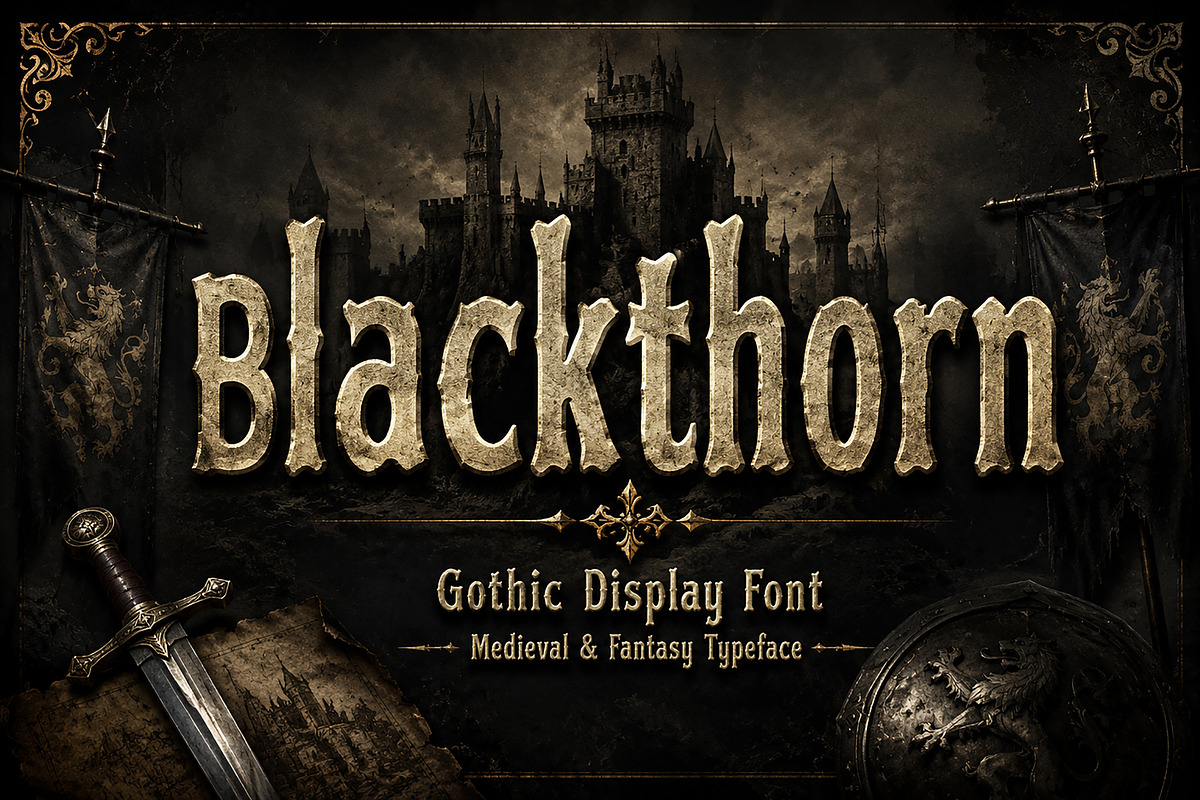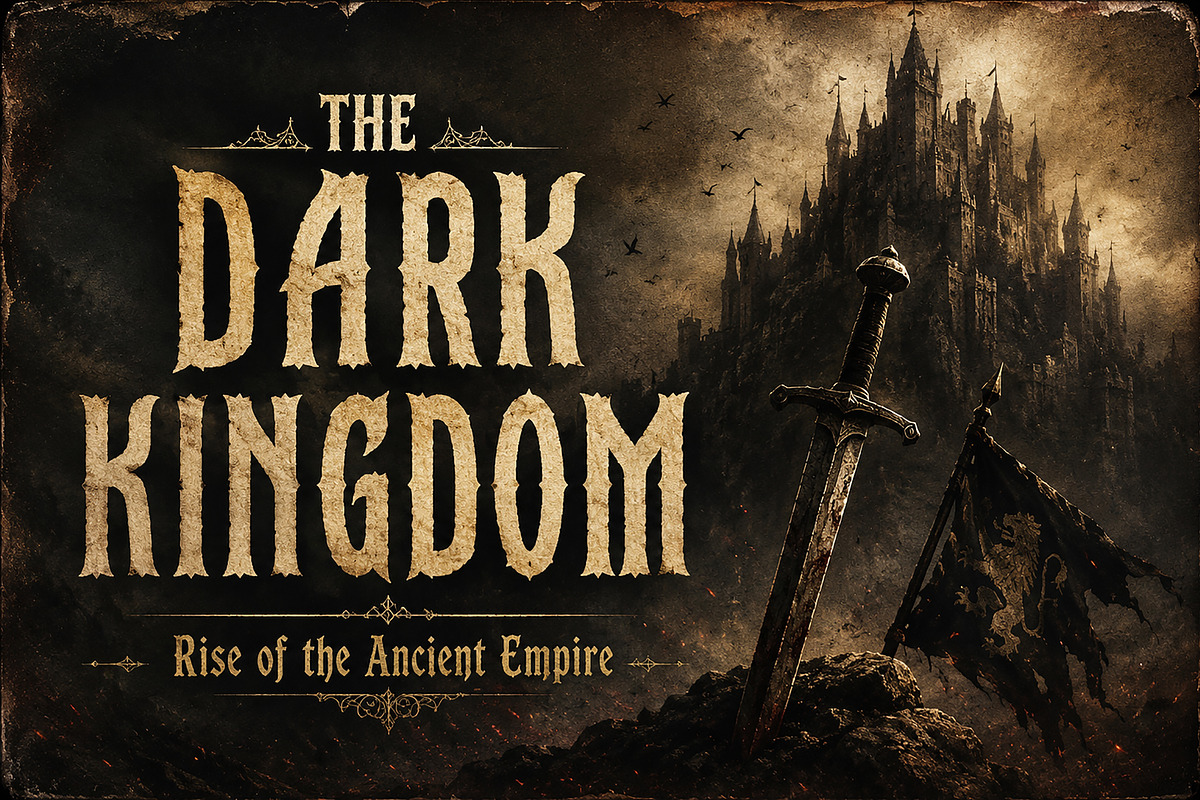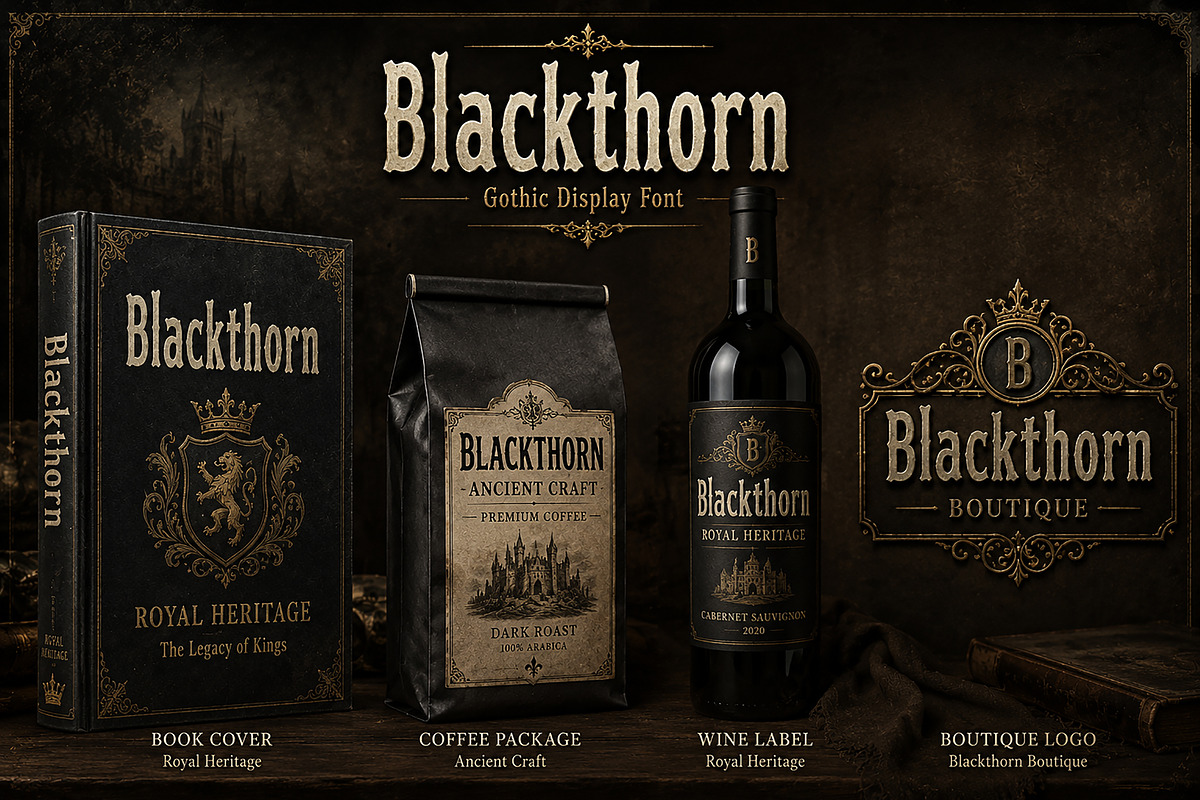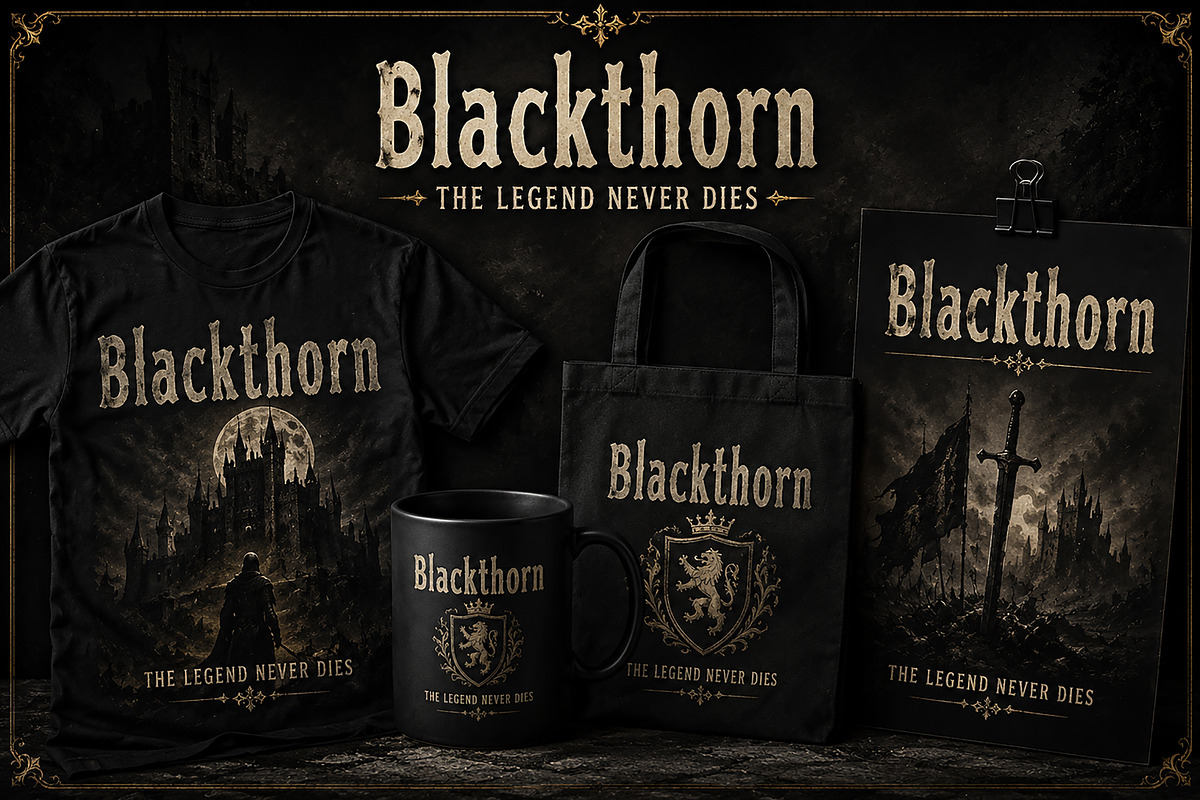
Blackthorn
Blackthorn – Gothic Display Font
Description
Blackthorn is a bold and atmospheric Gothic display font inspired by medieval legends, ancient kingdoms, and dark fantasy worlds. Featuring sharp blackletter-inspired forms, dramatic strokes, and a handcrafted vintage character, this typeface is designed to make a powerful visual statement.
Perfect for fantasy book covers, movie titles, gaming projects, medieval branding, gothic merchandise, posters, packaging, logos, apparel, and historical-themed designs, Blackthorn delivers a timeless aesthetic that blends elegance with mystery.
Whether you're creating a dark fantasy kingdom, a legendary adventure, or a luxury vintage brand, Blackthorn provides the authentic medieval charm needed to bring your vision to life.
Uppercase & Lowercase Characters
Gothic & Medieval Style
Vintage Blackletter Inspiration